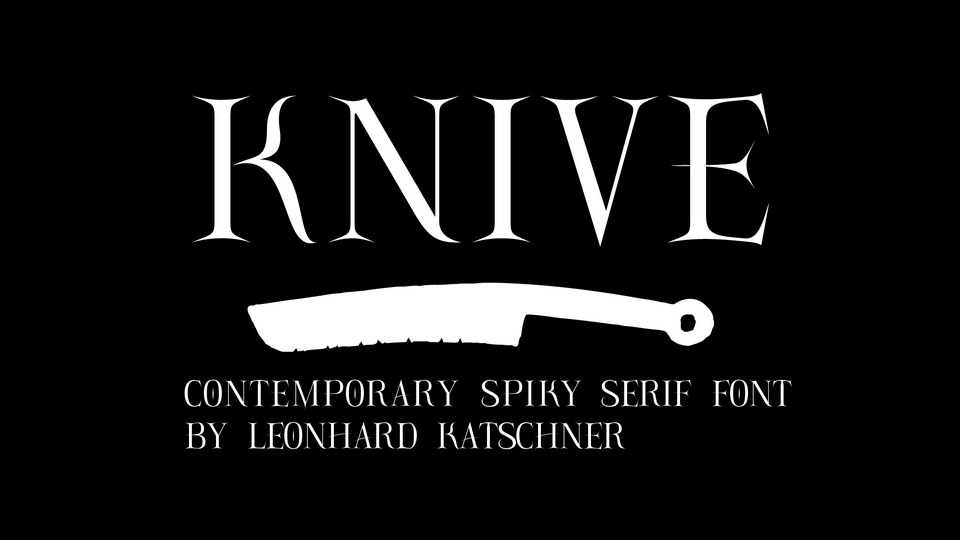
Download Knive font, a contemporary spiky serif typeface. With its sharp curves and unique shapes, Knive font is perfect for display and editorial use.
Designer: Leonhard Katschner